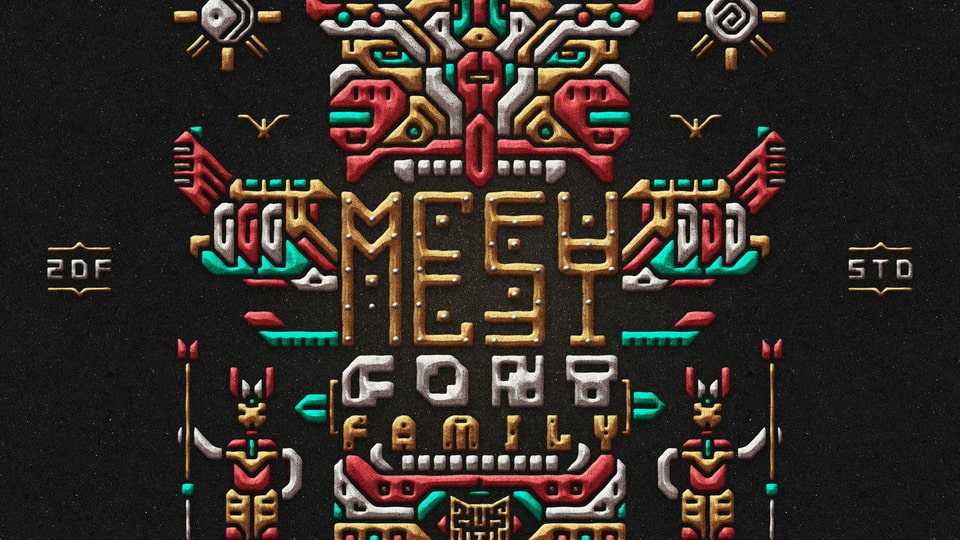
Download MESY Guako font, an ethnic hand drawn typeface with Latin and Cyrillic alphabets. Suitable for any graphic designs such as branding materials, t-shirts, print, games, logos, posters .etc.